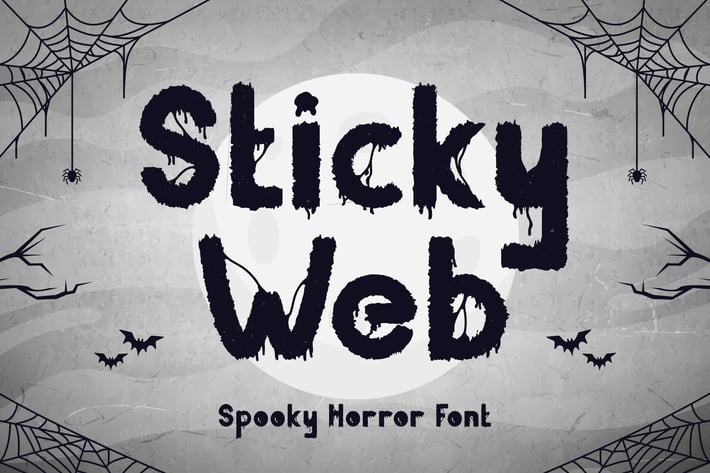
Sticky Web – Spooky Horror Font
Sticky Web is an incredibly unique display font. Masterfully designed to become a true favorite, this font has the potential to bring each of your creative ideas to the highest level!
It doesn’t matter if you’re creating Game Horror, designs, or crafts that are meant to be scary – this font will provide any project with extra spook, fright, and feels.